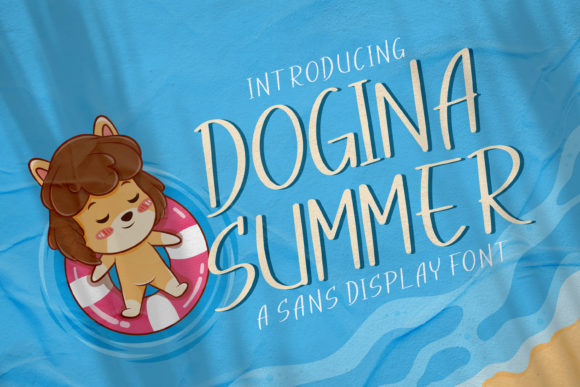
Introducing Dogina Summer Font, the epitome of warmth and cheerfulness, a display font that will infuse your designs with a touch of playfulness and charm. Its simplicity and friendliness make it the perfect choice for projects that demand a dash of whimsy and lightheartedness.
Unleash your creativity with Dogina Summer Font, a font family that adapts effortlessly to various design styles, allowing you to effortlessly express your unique vision. Whether you're crafting captivating cartoon-related designs, engaging children's games, or simply seeking a font that exudes a charming aura, Dogina Summer Font stands ready to elevate your creations.
Immerse yourself in the world of Dogina Summer Font, a font crafted by integritypestudio, renowned for their dedication to creating fonts that resonate with users' hearts. With its meticulous attention to detail and unwavering commitment to quality, integritypestudio has ensured that Dogina Summer Font is not merely a font; it's an experience that will transform your designs into works of art.